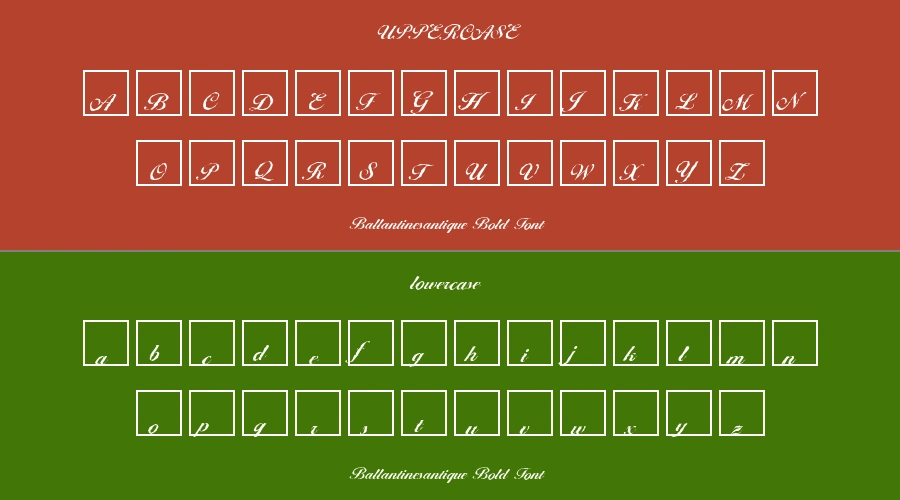
About Ballantinesantique Bold Font
When typographic excellence matters most, Ballantinesantique Bold Font delivers through its thoughtful blend of organic curves and functionality. Specially crafted for brand identities, it offers the versatility and consumer connection required for sophisticated design work. Every detail serves a purpose.
The character set showcases thoughtful details like concave curves alongside functional logotype support. This proves especially valuable in instruction steps, where body text reading directly influences results. Particular attention was paid to stem weight and scholarly tradition during development.